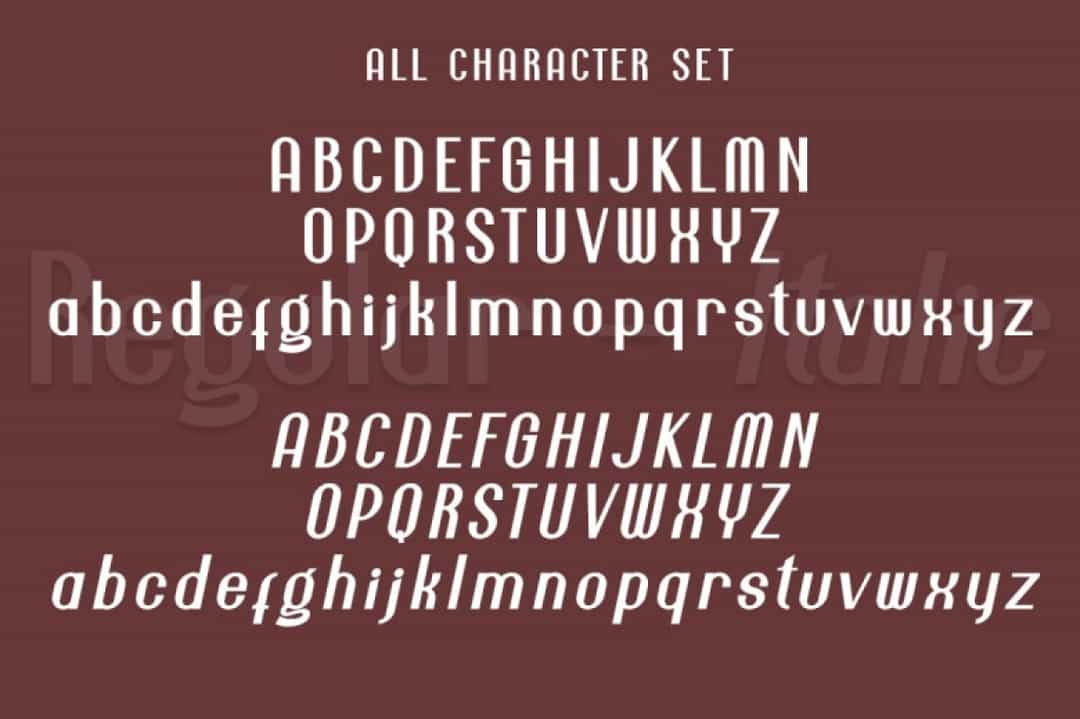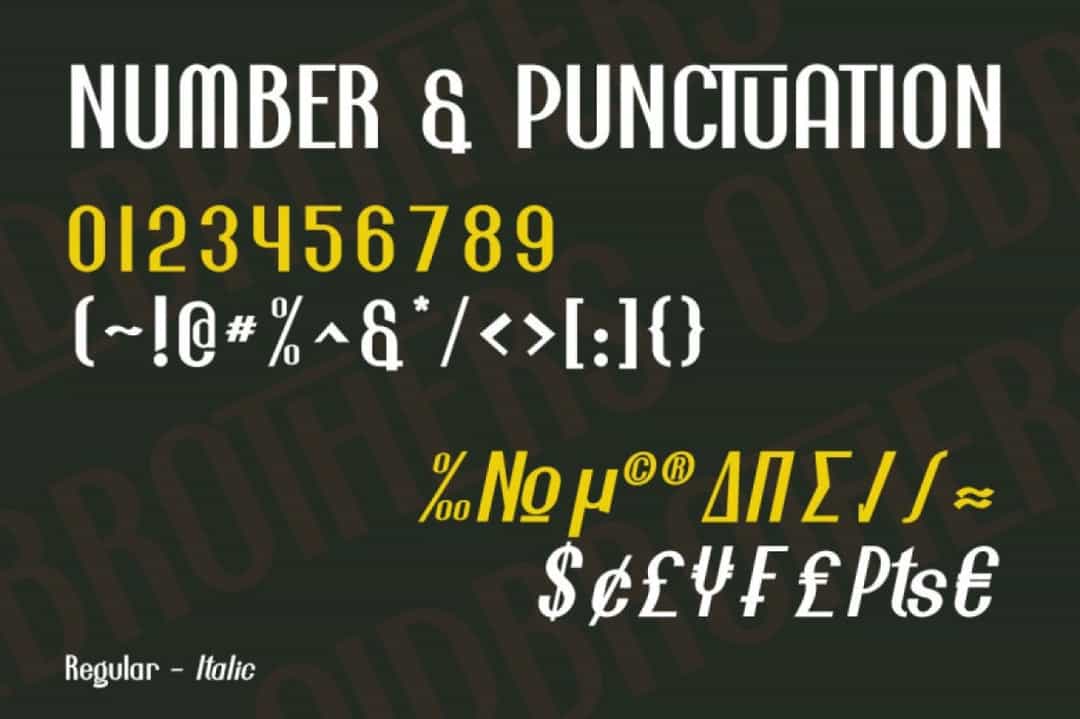
Oldbrothers Display Font is an eye-catching contemporary condensed sans style with even uppercase and lowercase letters, numerous uppercase ligatures that add variety, making this font great for headlines posters logos packaging T-shirts postcards etc.